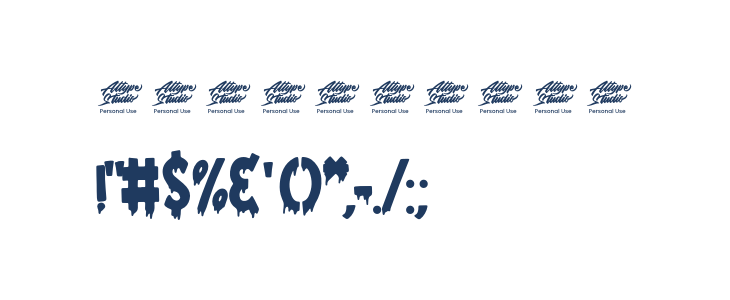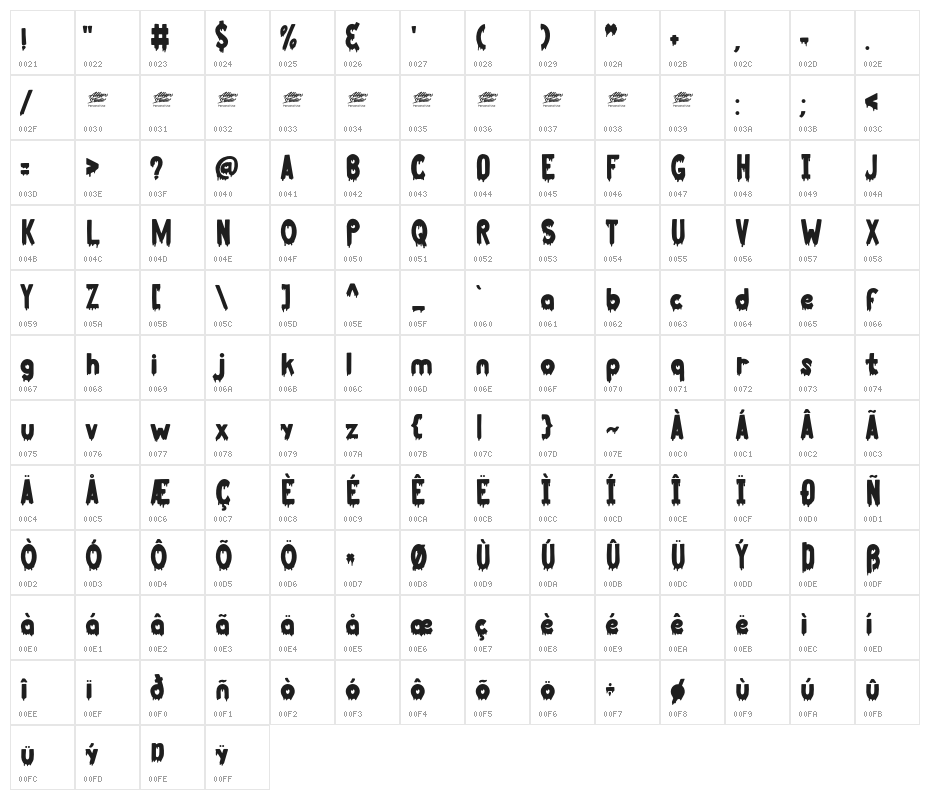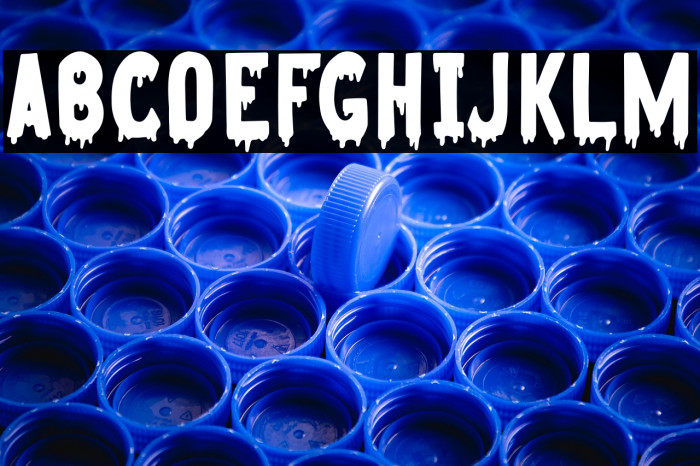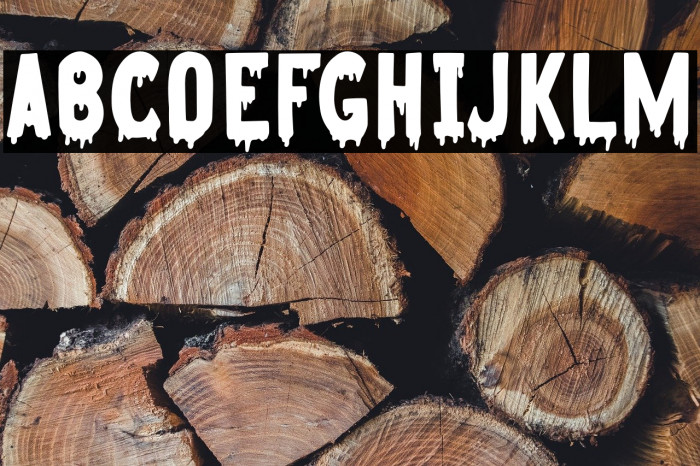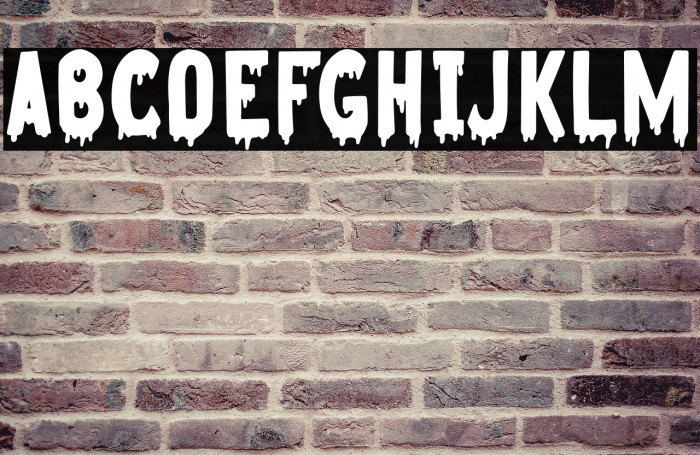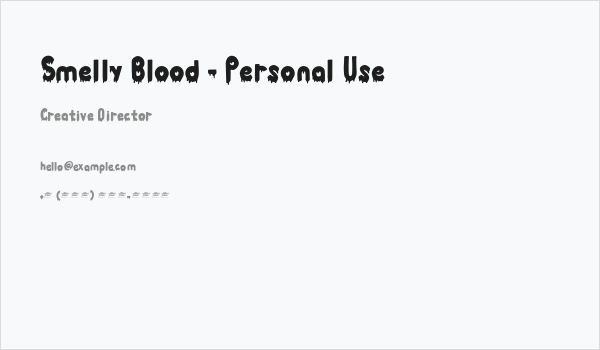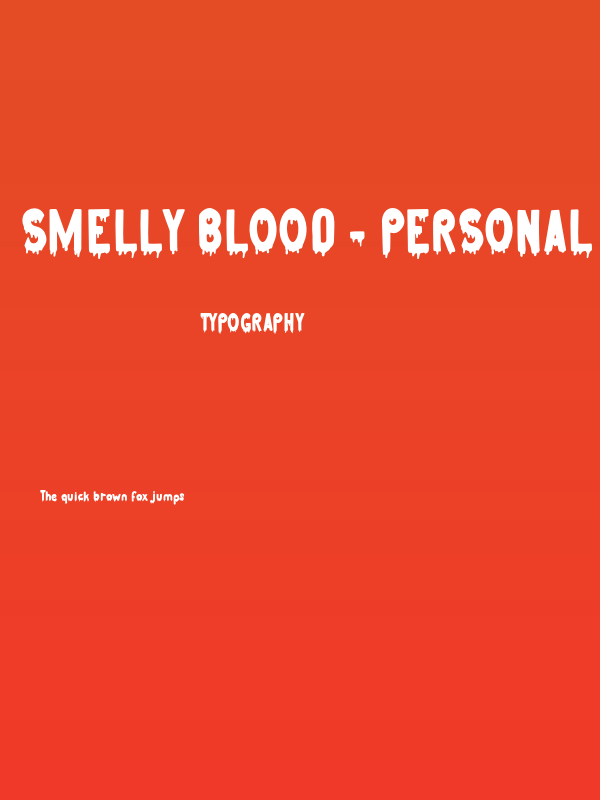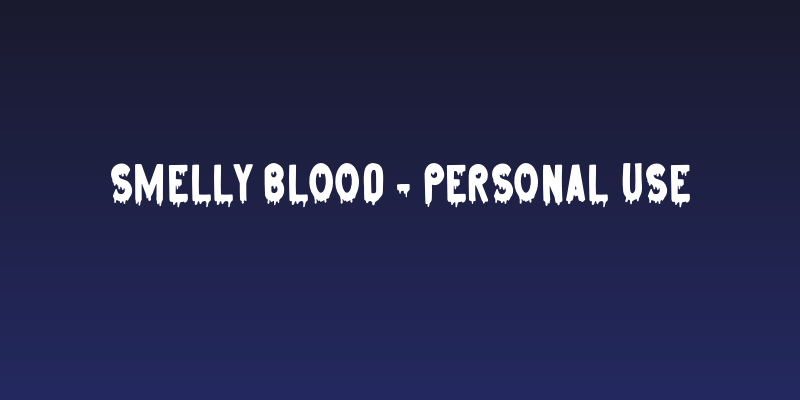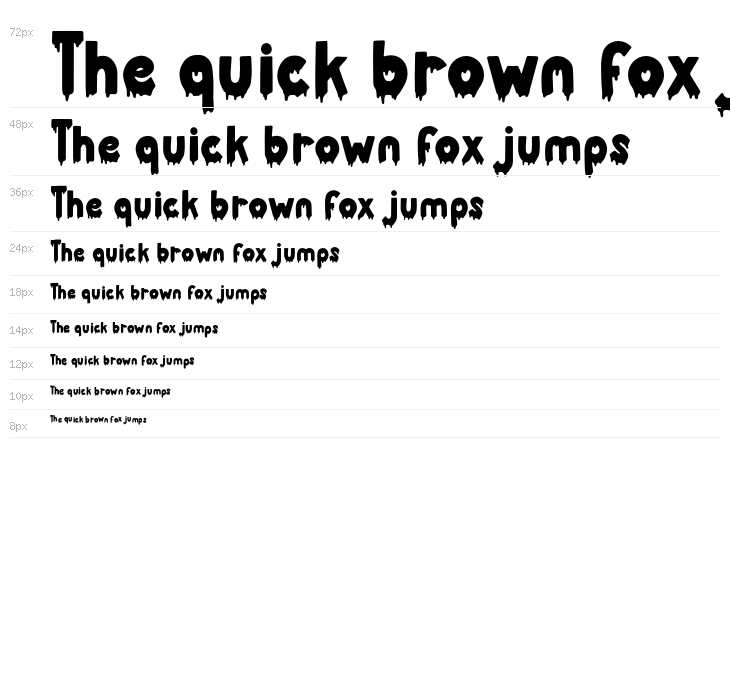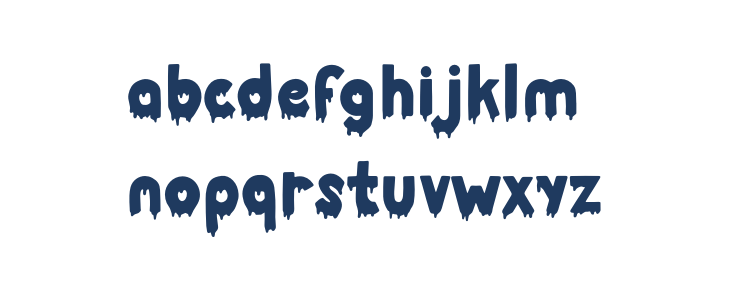
Smelly Blood - Personal Use Font
Smelly Blood - Personal Use Description
This font features a bold and dramatic style with a dripping effect reminiscent of melting or oozing liquid. The characters are thick and heavy, with a playful yet eerie appearance that makes them stand out. The uppercase and lowercase letters maintain a consistent design, with the lowercase being slightly smaller but equally impactful. The numbers and special characters follow the same theme, ensuring a cohesive look across all text. This font's unique style is perfect for creating a spooky or horror-themed atmosphere, making it ideal for Halloween events or any project requiring a touch of the macabre.
| Use Case | Headlines, Posters, Logos |
| Proposed Projects | Ideal for Halloween invitations, horror movie posters, themed party decorations, or any project needing a dramatic, eerie touch. |